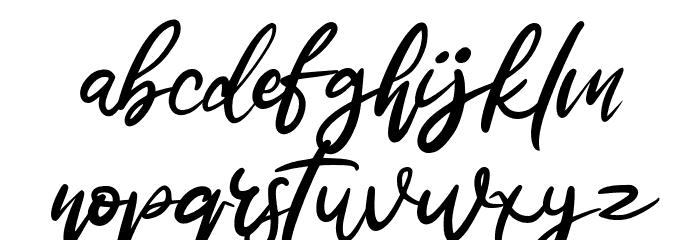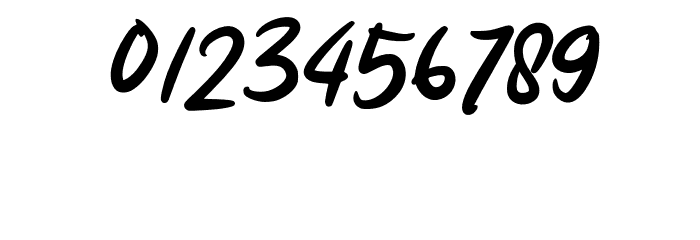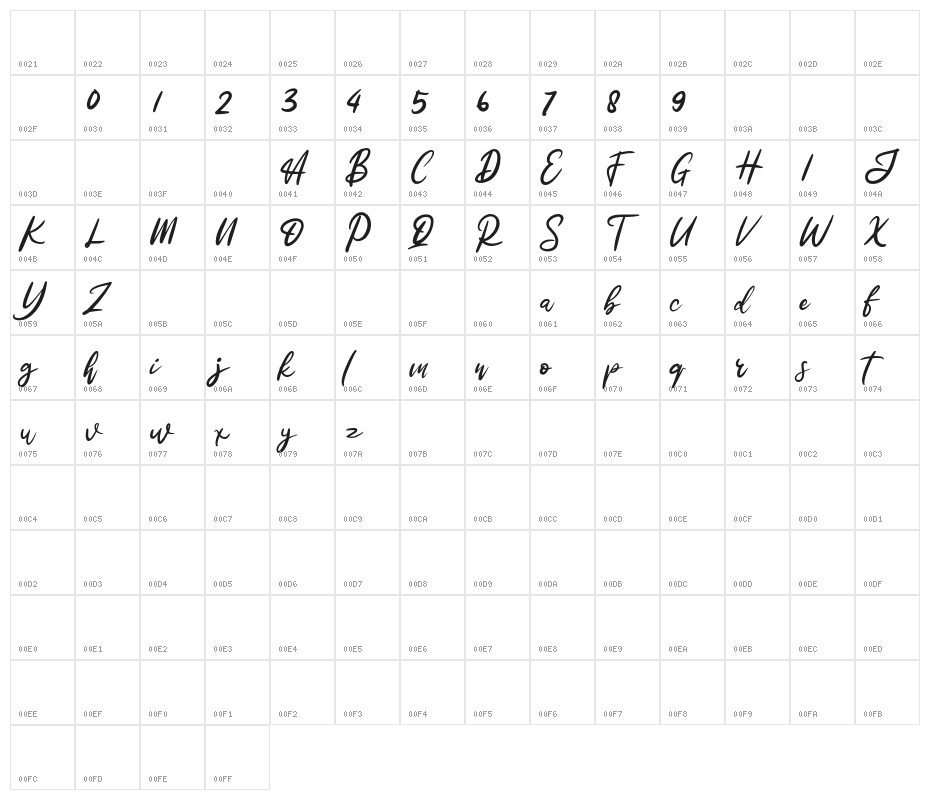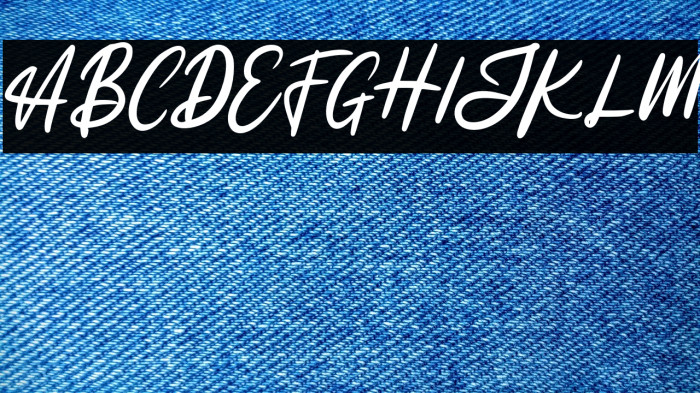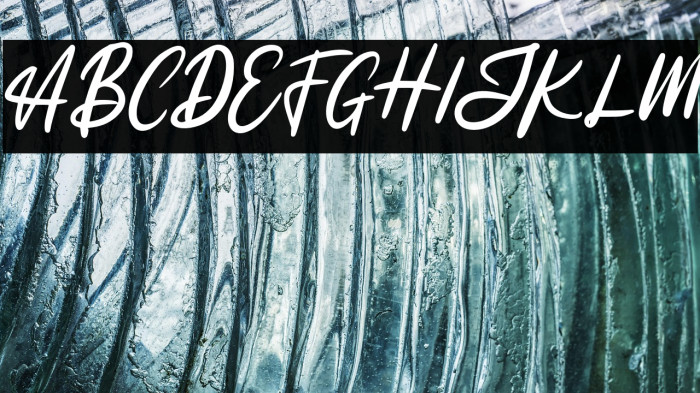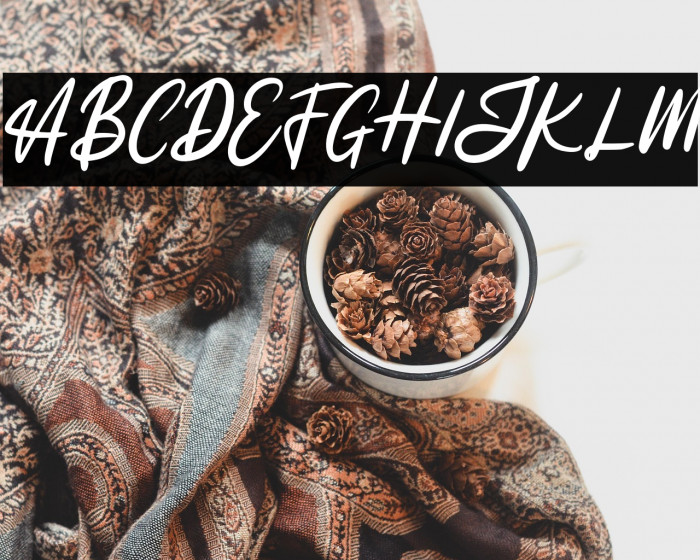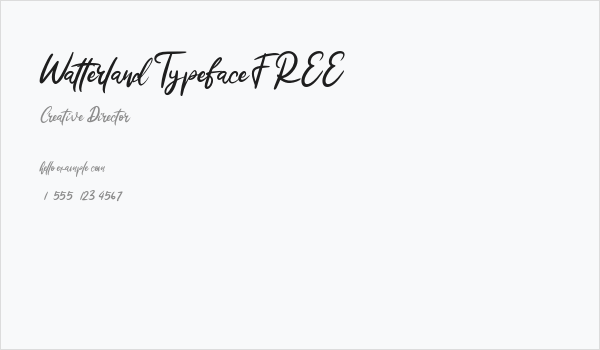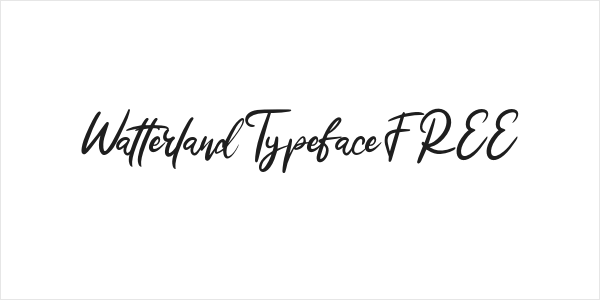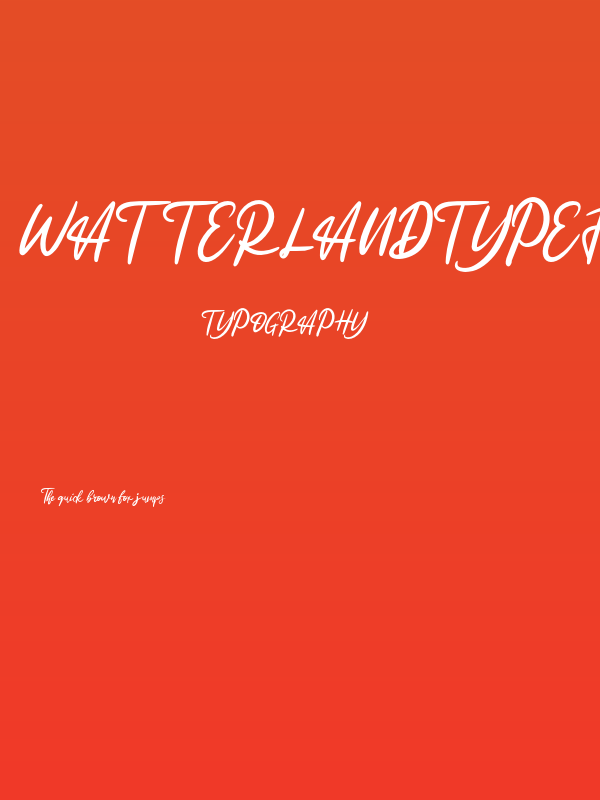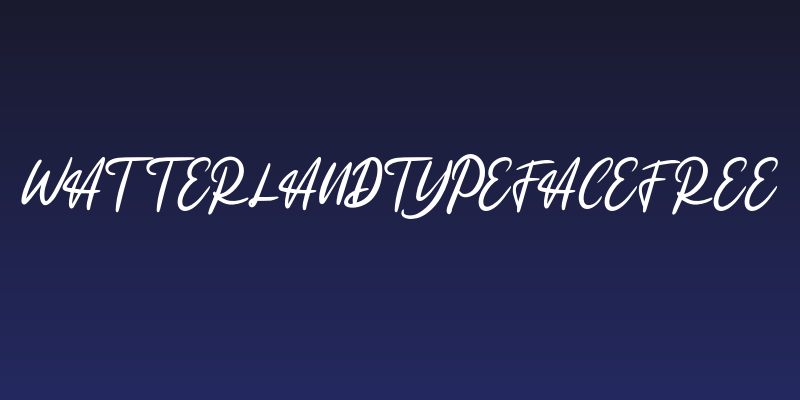
WatterlandTypefaceFREE Font
This font features a flowing, cursive style with a modern twist. The letters are connected in a smooth, elegant manner, giving it a handwritten appearance. The uppercase letters are bold and slightly slanted, while the lowercase letters maintain a consistent flow, enhancing readability. The numbers and special characters are crafted to match the overall aesthetic, providing a cohesive look. The strokes vary in thickness, adding a dynamic feel to the text. This font is suitable for projects that require a personal touch, such as invitations, greeting cards, or branding materials.
A modern, cursive font with a handwritten style and dynamic strokes.
- Font: WatterlandTypefaceFREE
- Proposed Projects: Ideal for invitations, greeting cards, branding, and personal projects.
- Category: Script
- Use Case: Logos, Headlines, Decorative text